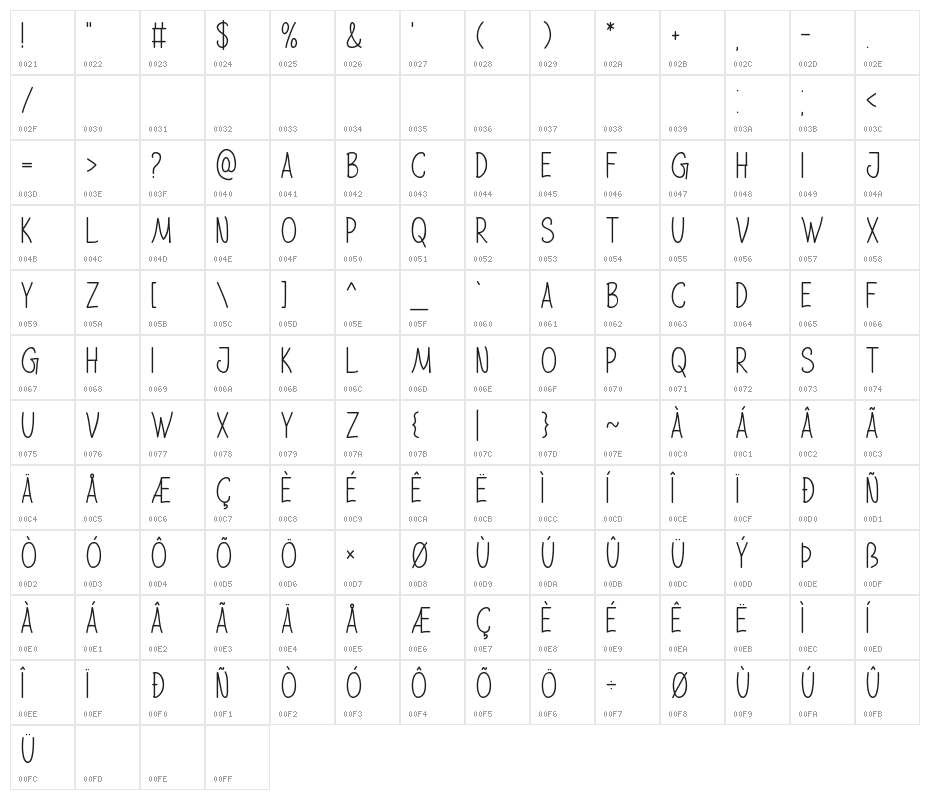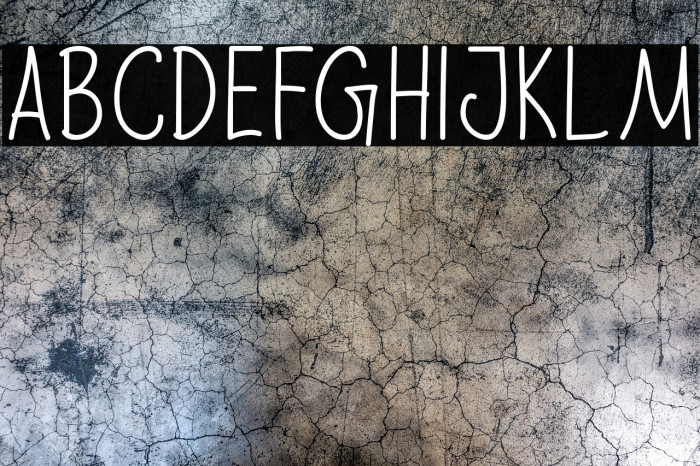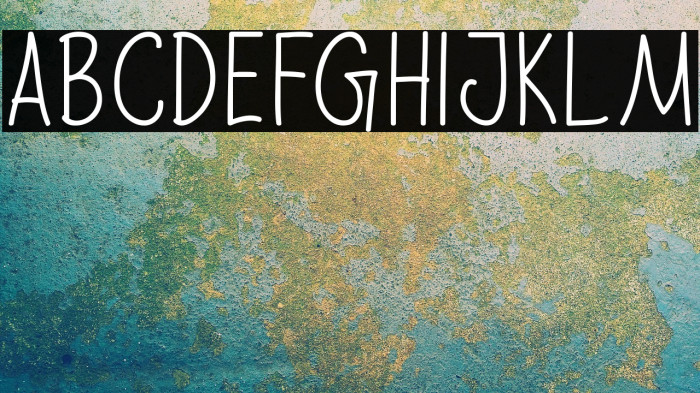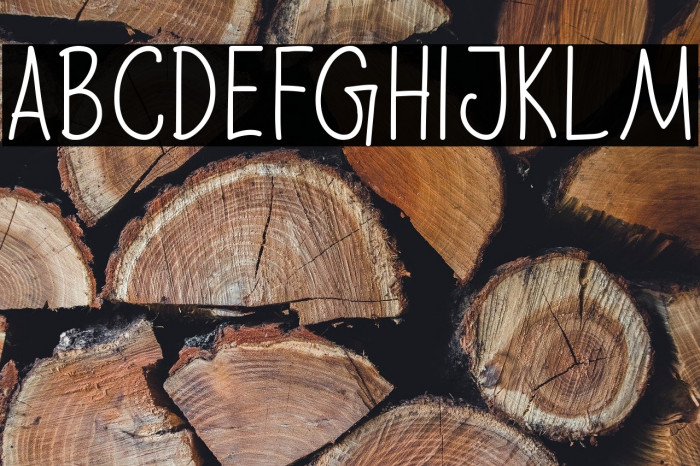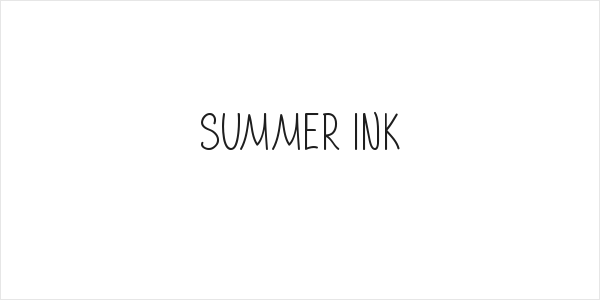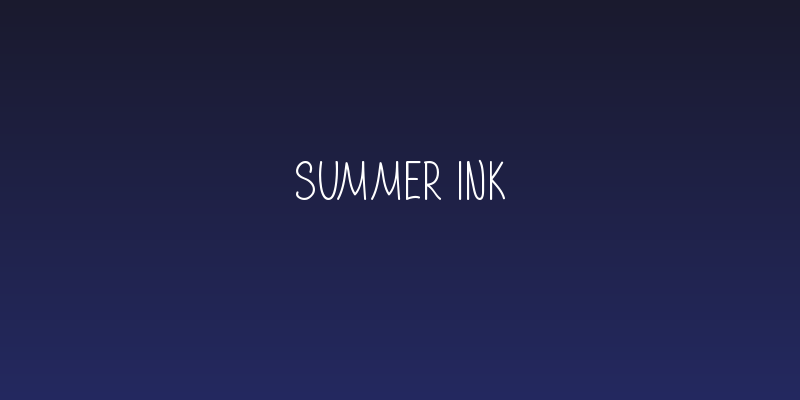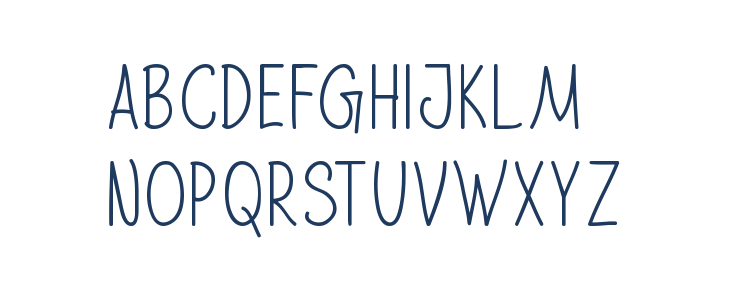
Summer Ink Font
Summer Ink Description
This font features a playful and casual handwritten style, characterized by its tall, narrow letters with a slight slant. The strokes are consistent in thickness, giving it a uniform appearance while maintaining a relaxed and informal vibe. The uppercase and lowercase letters are distinct yet harmonious, with a whimsical touch that adds personality. The special characters and numerals follow the same playful design, making it versatile for various creative projects. Its simplicity and charm make it suitable for designs that require a friendly and approachable feel.